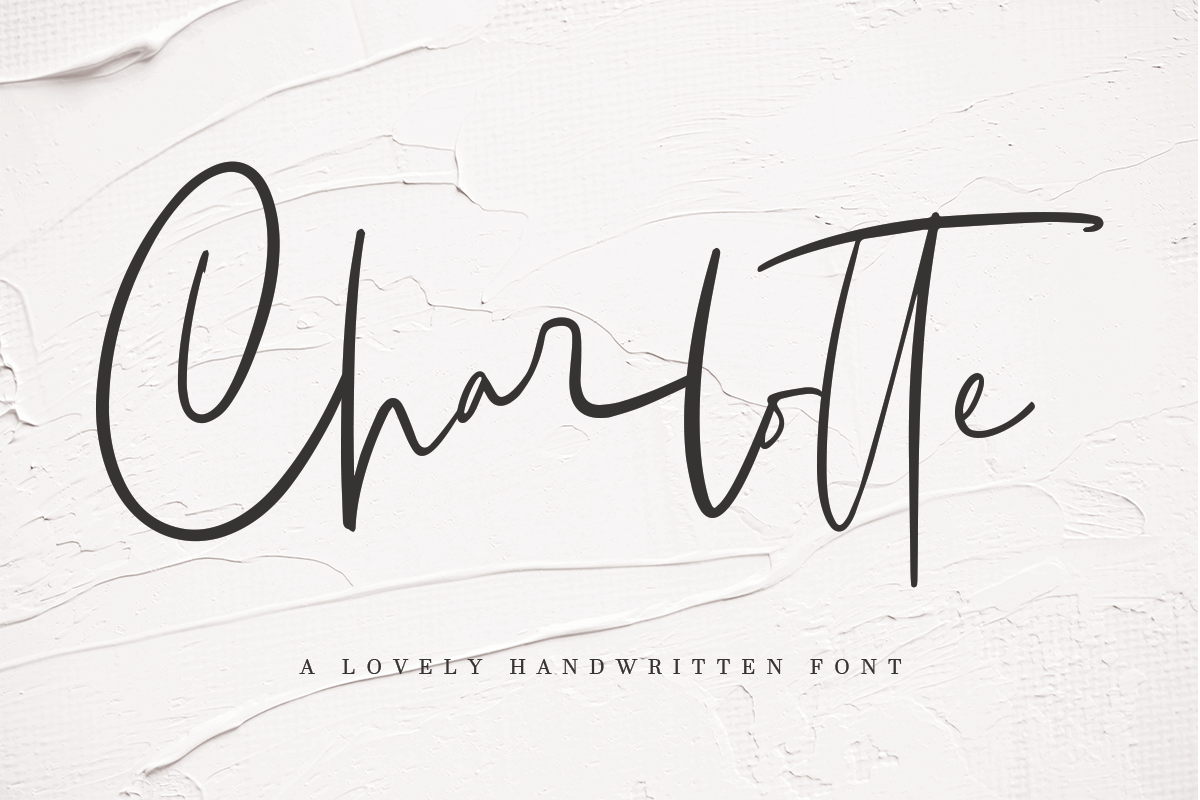
Charlotte | Handwritten Font
INTRODUCE .... Charlotte Handwritten Font is a feminine type of Hanwritten. You can use it as a type of logo, badge, packaging, title, poster, t-shirt / clothes, greeting cards, wedding invitations and more. The flowing character is ideal for creating interesting messages, plus an ideal ligature for adjusting your project.Charlotte multilingual support:áäåãéèëìïîòöôøùüAÀÁÂÃÄÅEÈÉÊËIÌÍÎÏNÑOÒÓÔÕÖUÙÜÚÛYÝŸ? ŸCharlotte font ligature:such as in e ff er, it will be done firstFiles include: